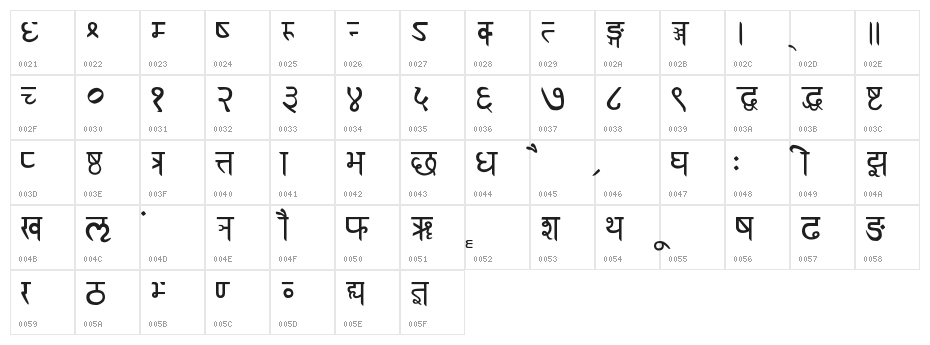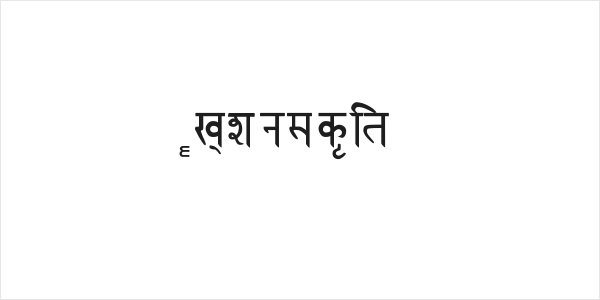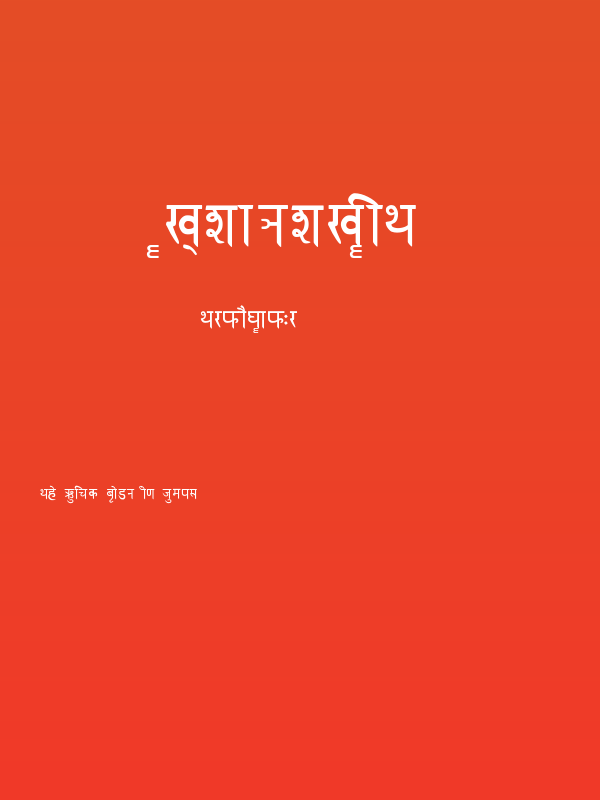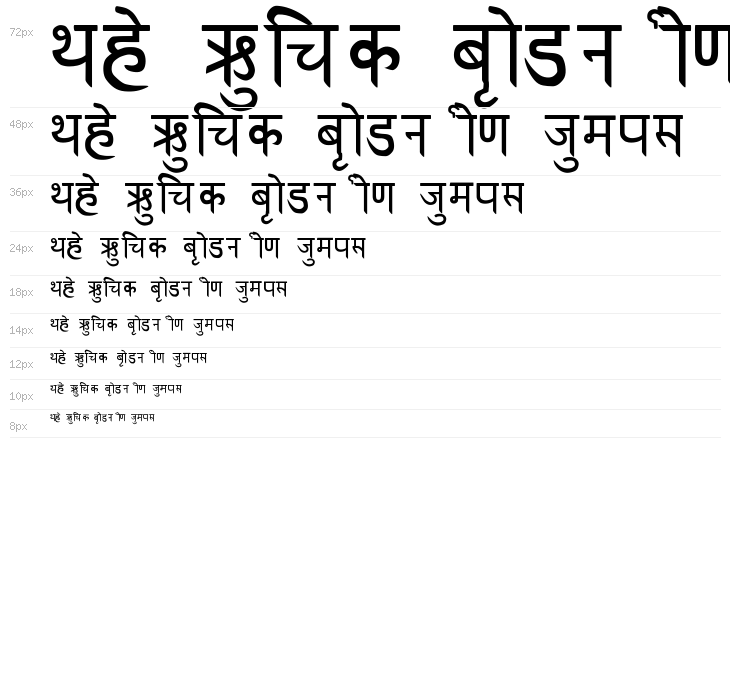
RK-Sanskrit Font
RK-Sanskrit Description
This font features a unique blend of traditional and modern elements, characterized by its geometric shapes and clean lines. The characters are enclosed within square boxes, giving it a structured and uniform appearance. The design is minimalistic, with each letter and symbol clearly defined within its space, making it highly legible. The font's style is reminiscent of ancient scripts, yet it maintains a contemporary feel, making it versatile for various design needs. Its simplicity and clarity make it suitable for both digital and print media, ensuring readability across different platforms.
| Use Case | Logos, Headlines |
| Proposed Projects | Ideal for branding projects, logo design, and modern editorial layouts. |